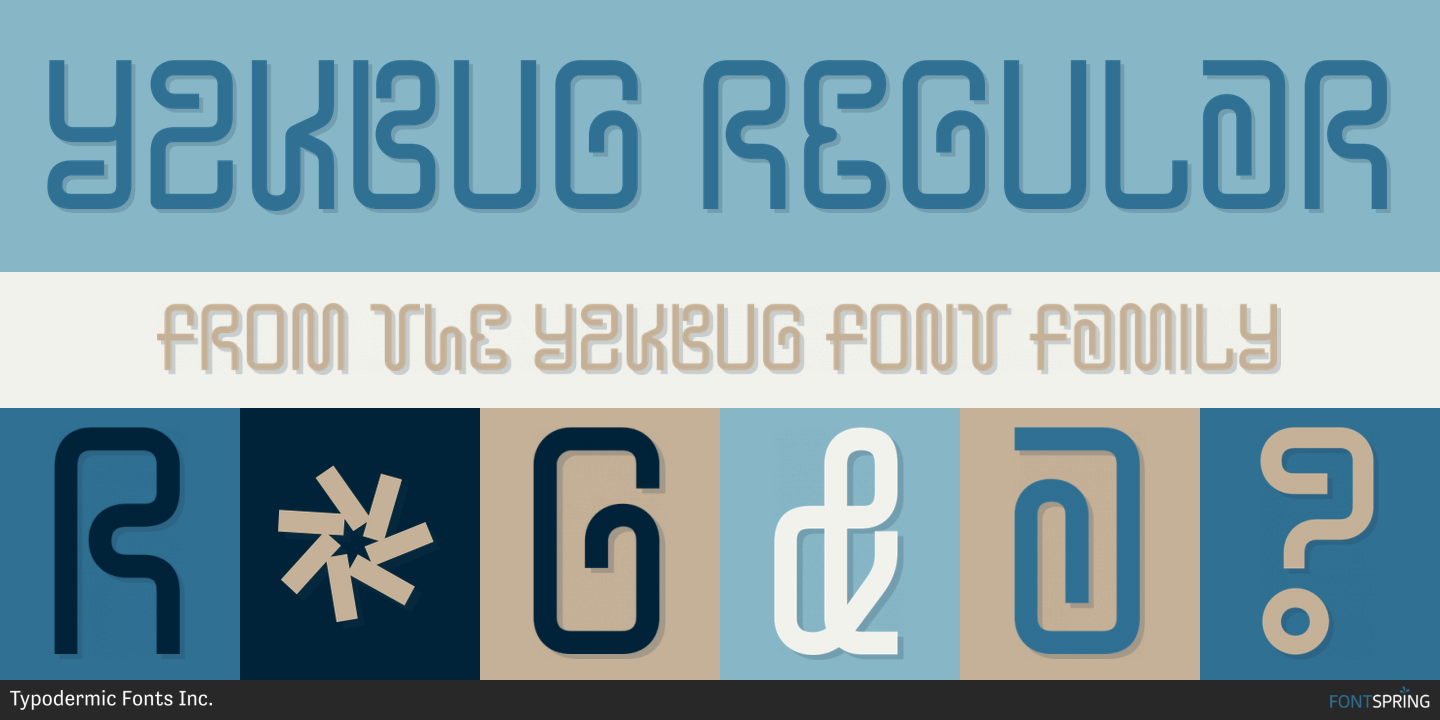
Y2KBug is a novelty font published by Typodermic Fonts Inc.
Y2Kbug is a wormular techno font which evokes feeling of designer jeans, carrots and corrugated cardboard. Use with caution.